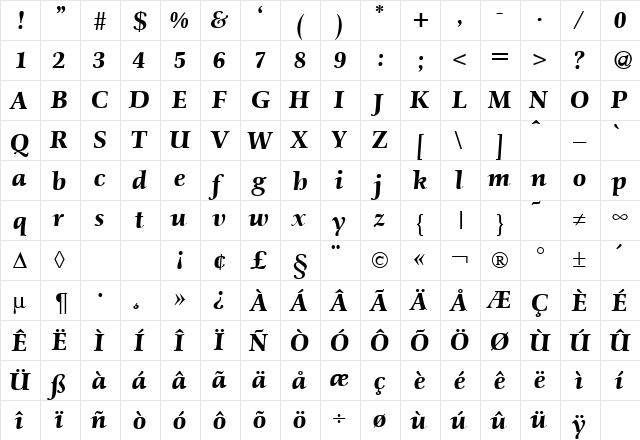
ScenicHeavy RegularItalic
ScenicHeavy is a composed and adaptable typeface that performs quietly and consistently across a wide range of design contexts. Its italic angle brings a sense of urgency and motion to the letterforms.